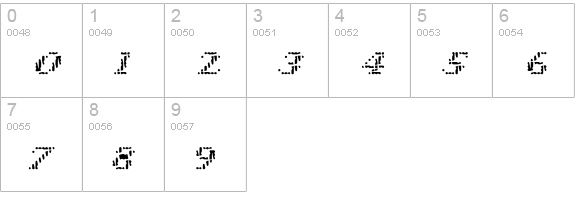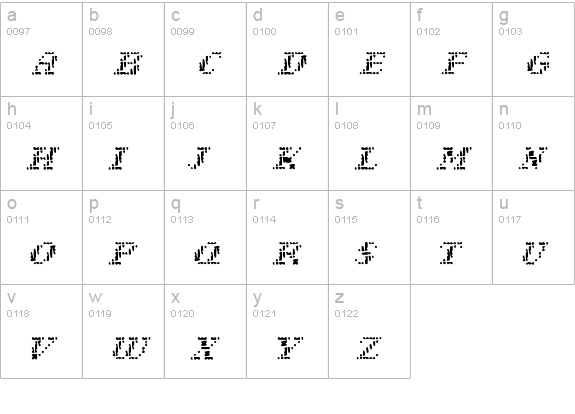
NarlyLight Font Details
NarlyLight font is a modern and stylish typeface that exudes elegance and sophistication. With its sleek lines and graceful curves, NarlyLight is perfect for adding a touch of class to any design project. Whether you're creating a logo, branding materials, or social media graphics, this font will elevate your work to the next level. What's even better is that NarlyLight font is completely free to download at FontsMarket.com. This means you can enjoy all the beauty and versatility of this font without any cost. Don't miss out on this opportunity to enhance your designs with NarlyLight font - download it today and see the difference it can make!